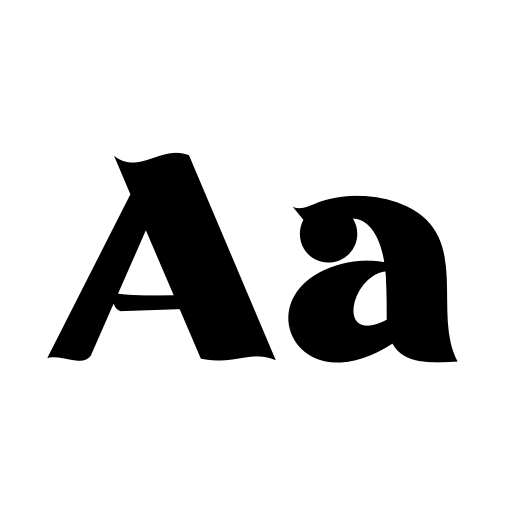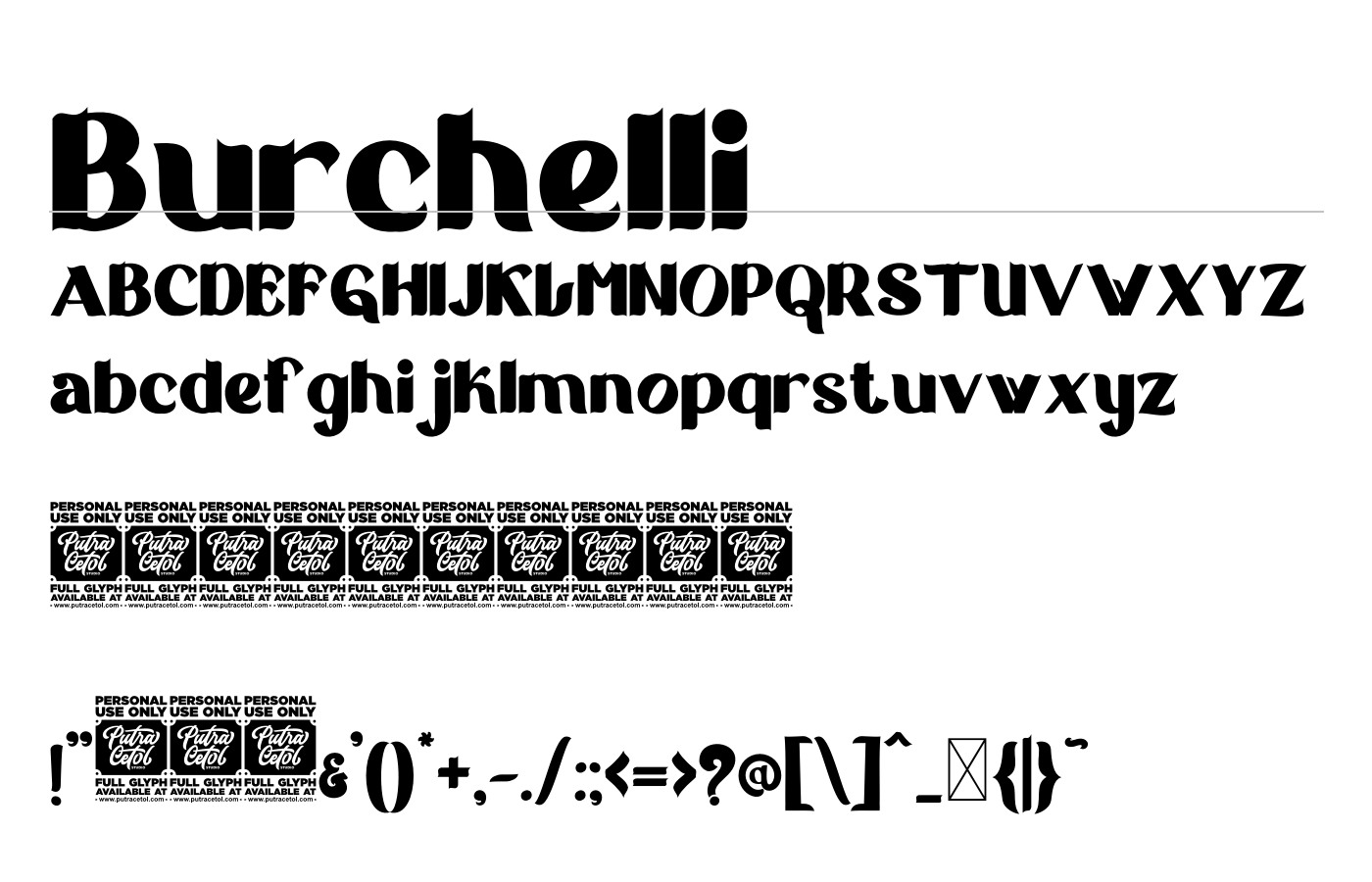
Burchelli is a bold serif typeface with a unique blend of vintage charm and modern flair, characterized by its thick, sharply cut serifs and strong contrast between thick and thin strokes. Its compact and sturdy letterforms have a somewhat playful yet serious personality, making it ideal for eye-catching headlines, logos, and display uses where a distinctive and confident statement is needed. This font works especially well in fashion, luxury branding, and editorial design, bringing a creative touch that stands out without losing clarity.
Burchelli Font
About Burchelli Font